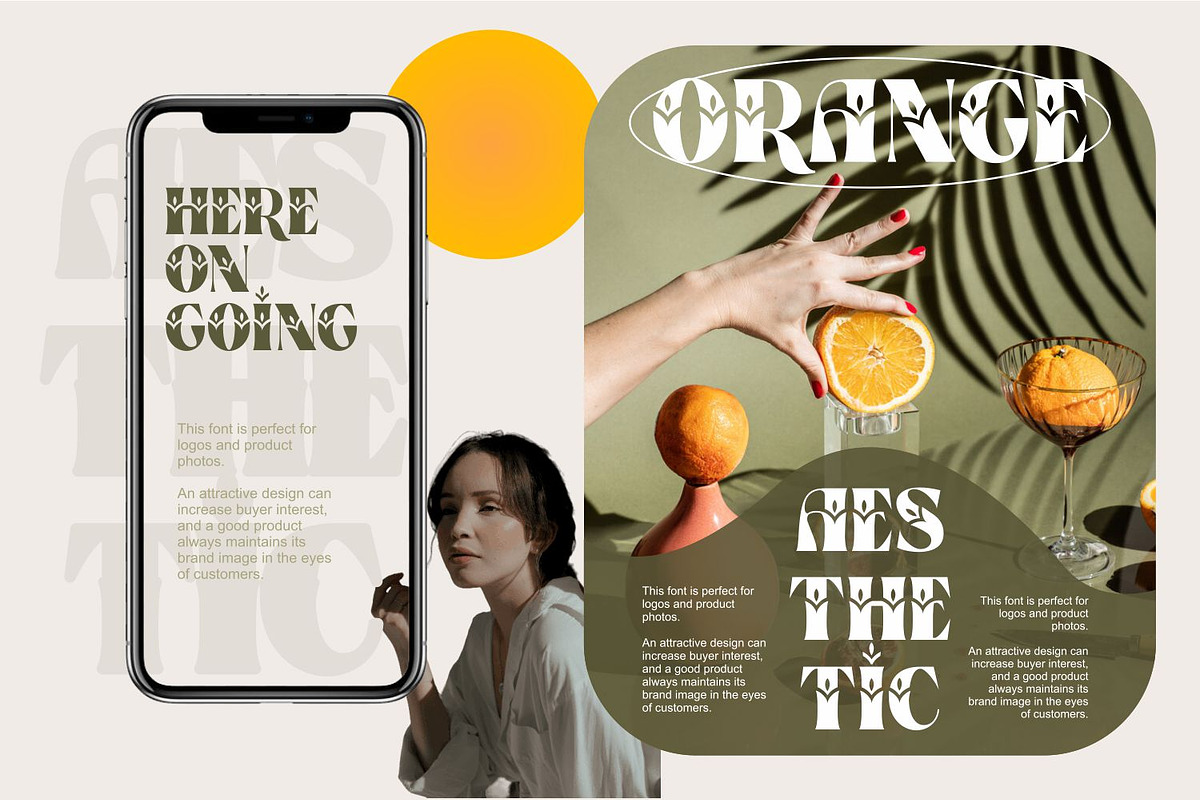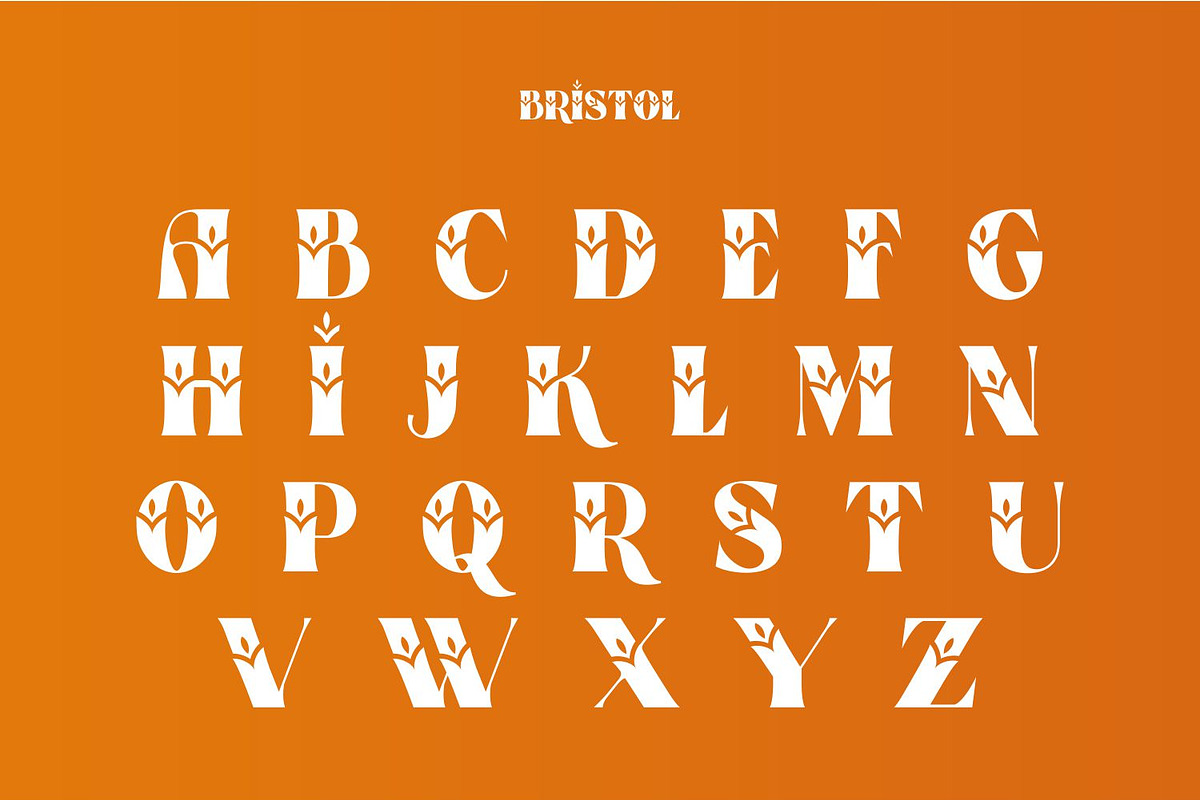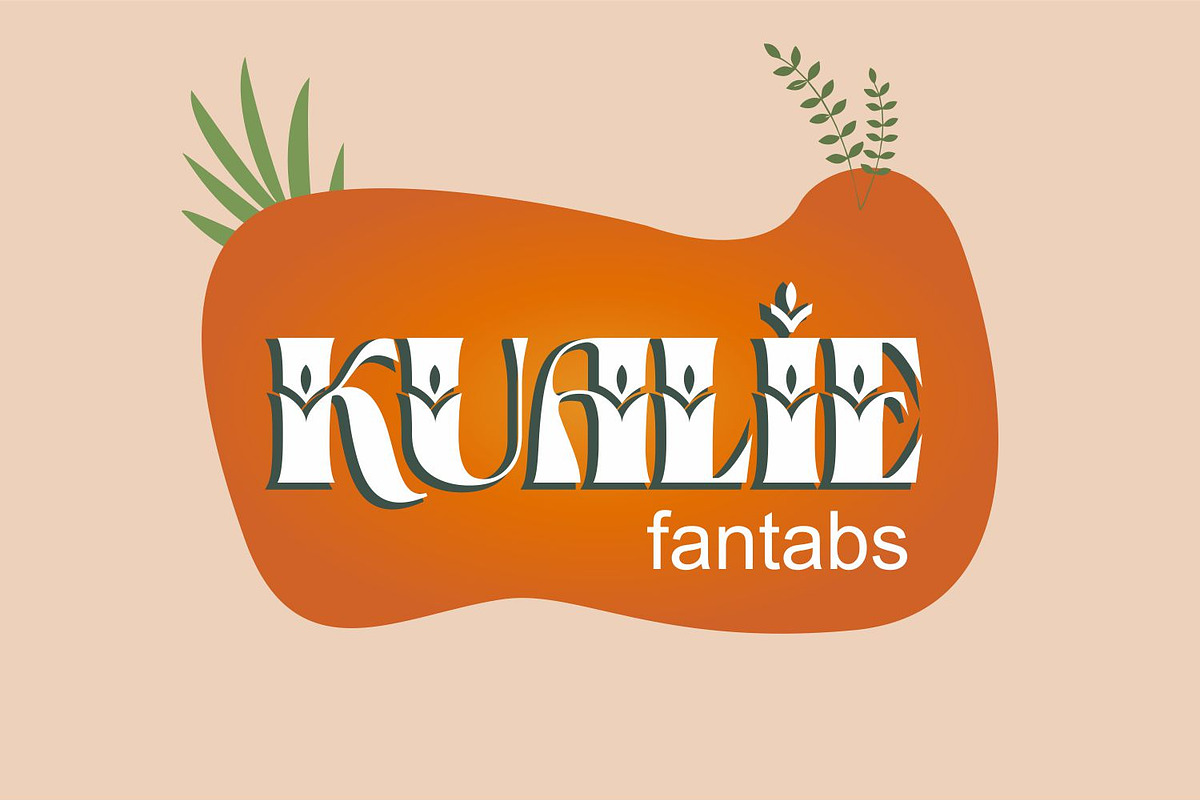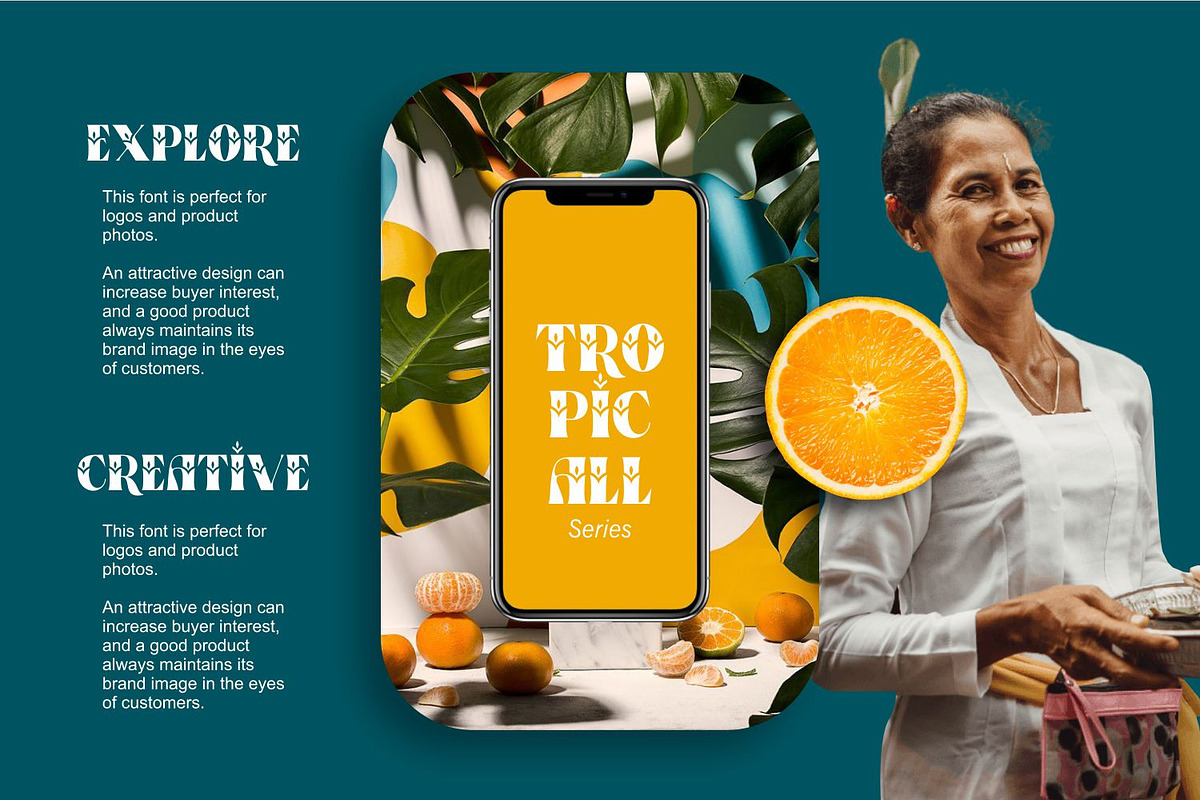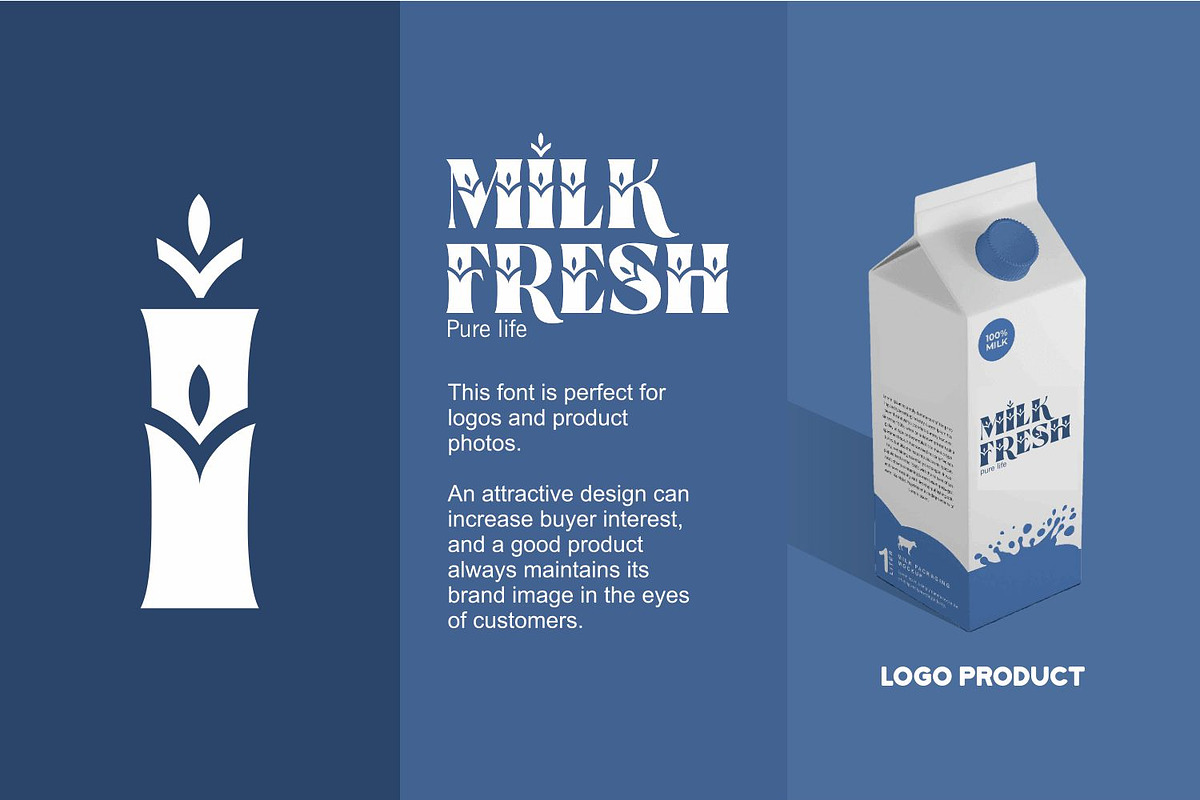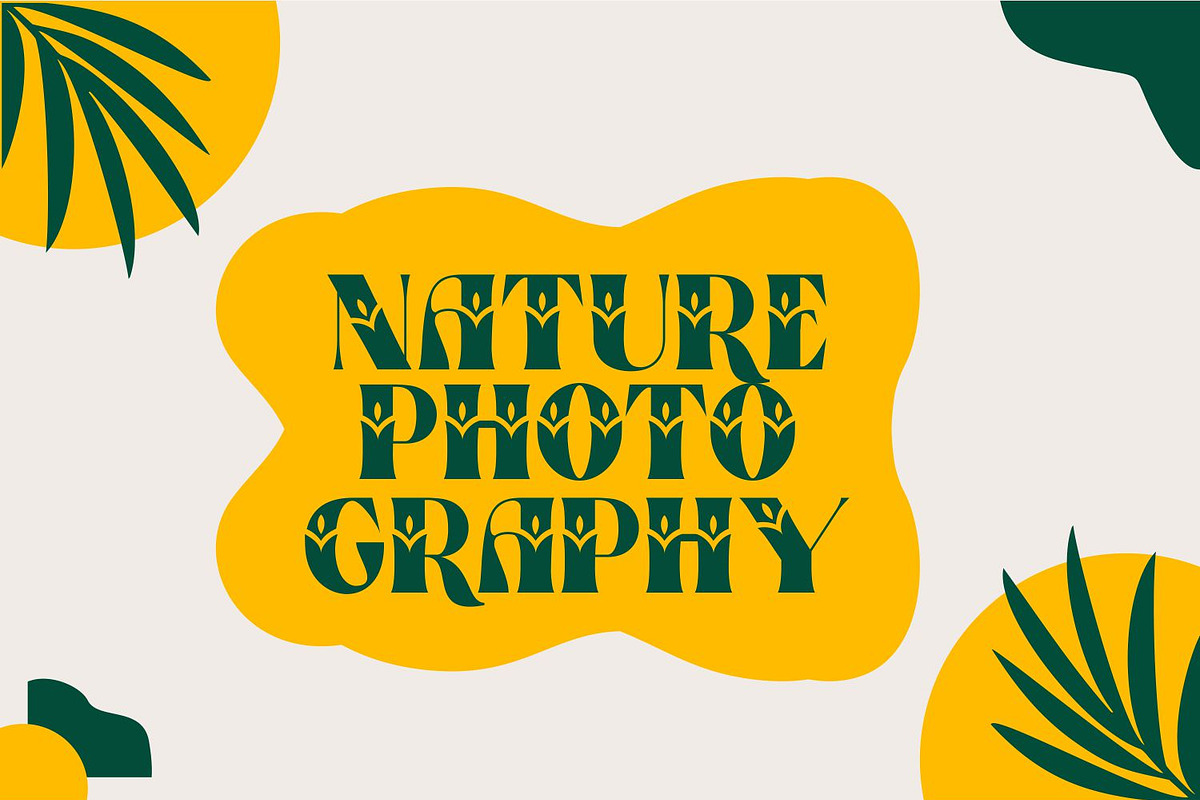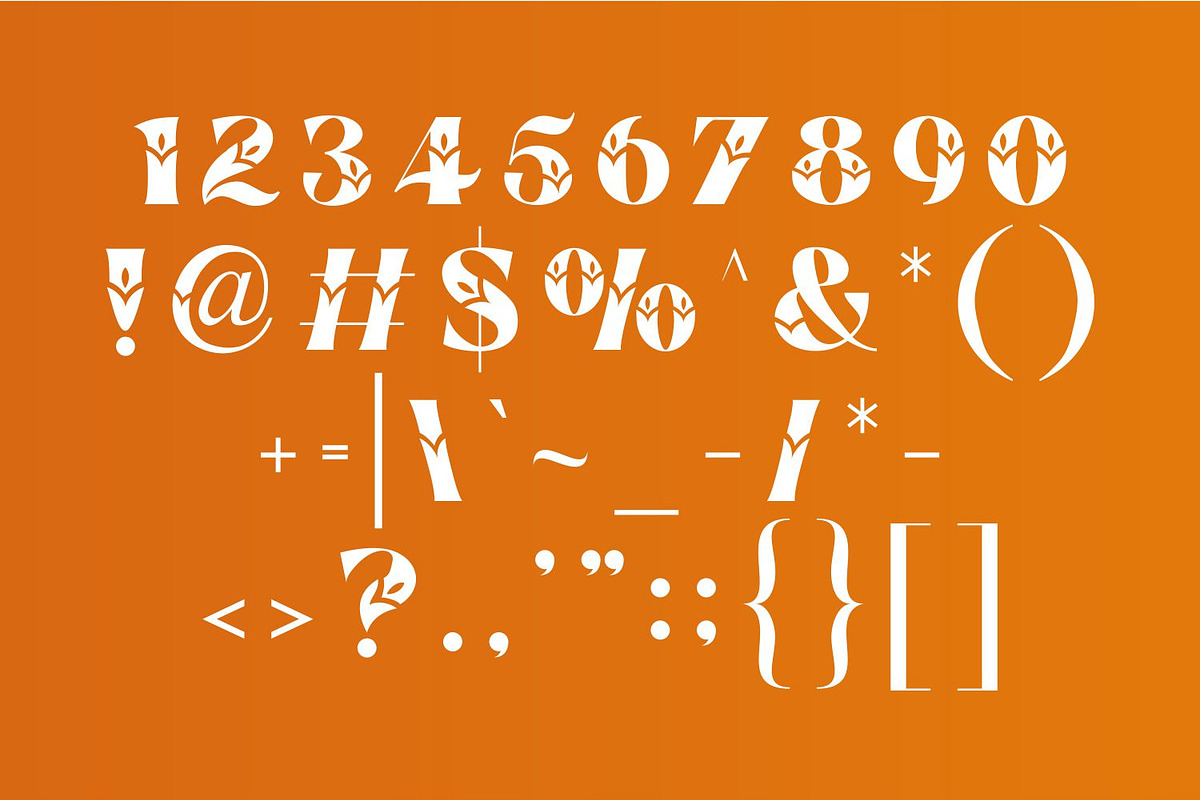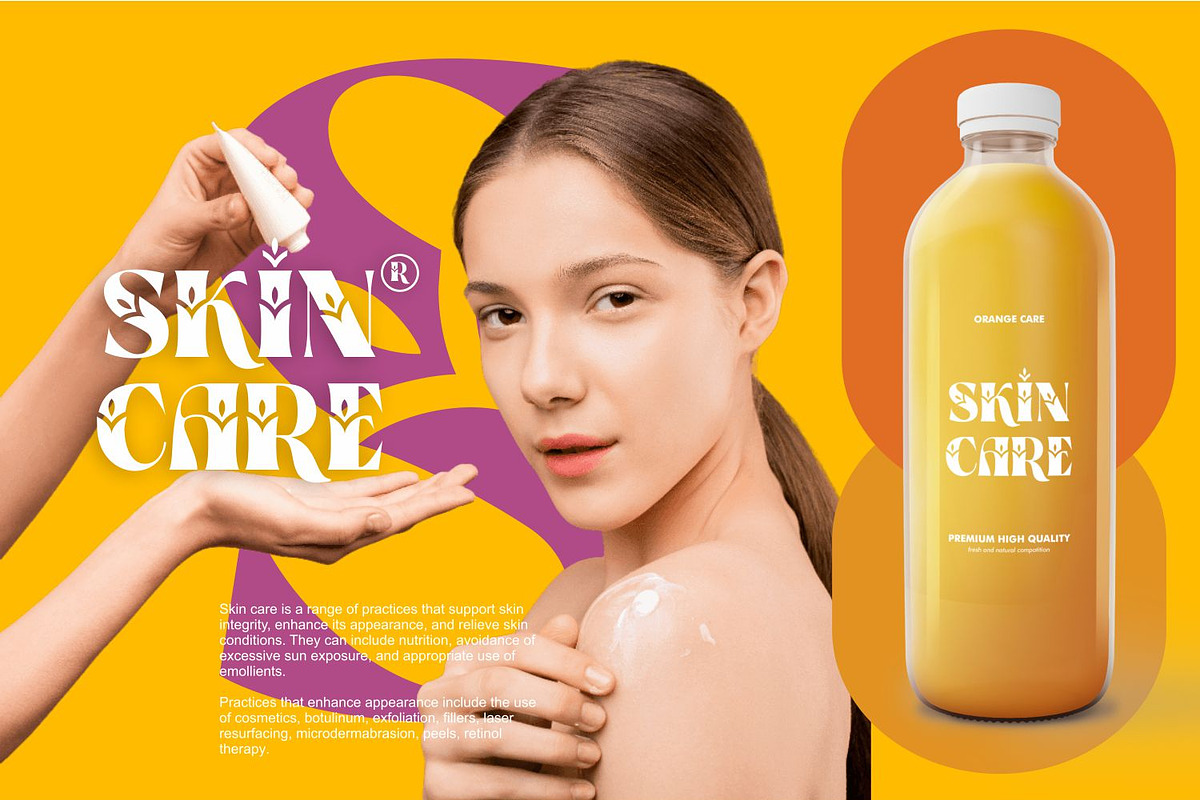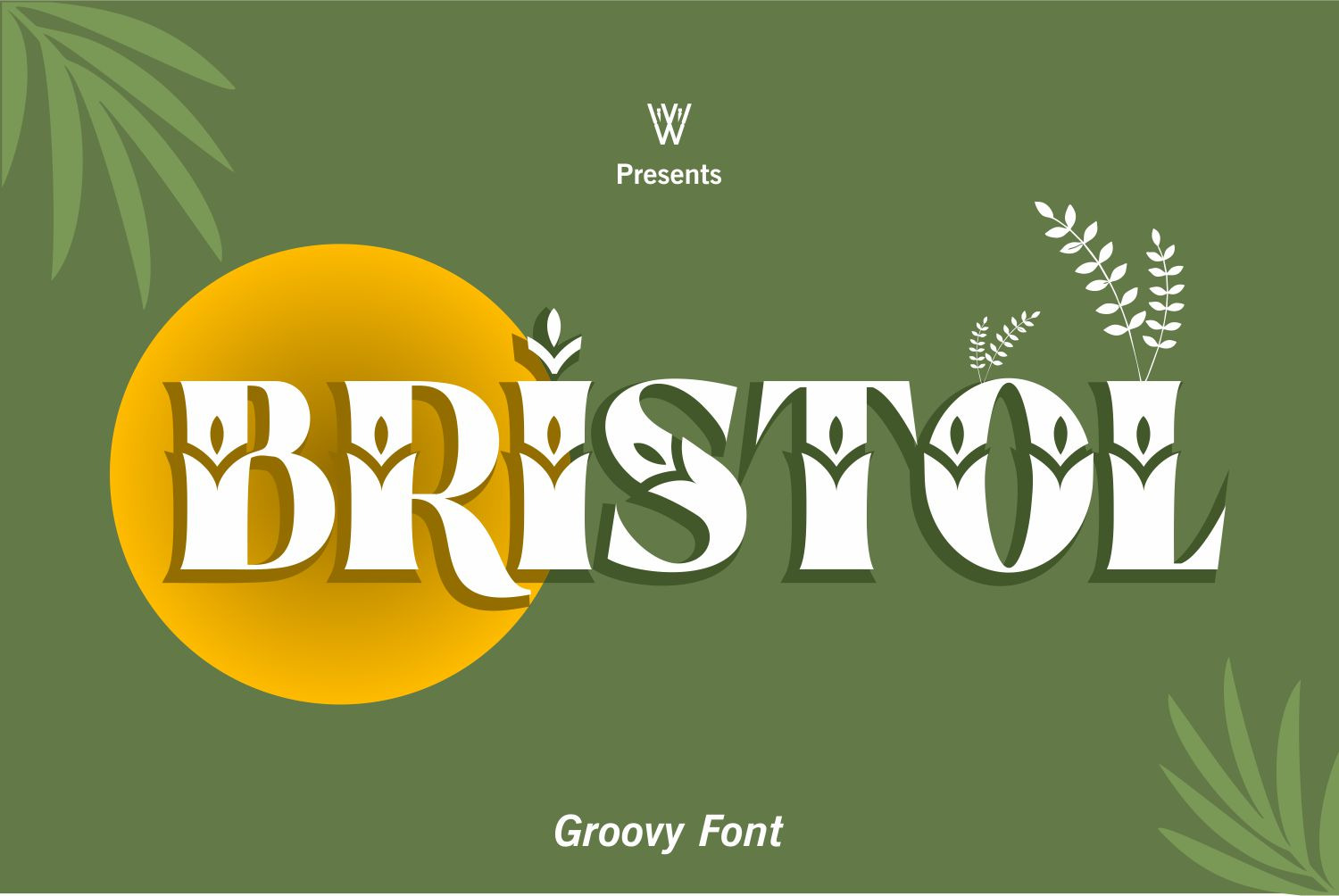
Bristol Slab Serif Groovy Font
The Bristol Font is a groovy and vibrant typeface that channels the spirit of the 1960s and 70s with its retro aesthetic. With its playful curves and psychedelic vibe, this font adds a sense of fun and nostalgia to any design project. Whether you’re creating posters, album covers, or branding materials with a retro theme, the Bristol Font brings a touch of vintage charm that captivates the viewer. Its bold and expressive nature makes it perfect for adding personality and flair to your designs.